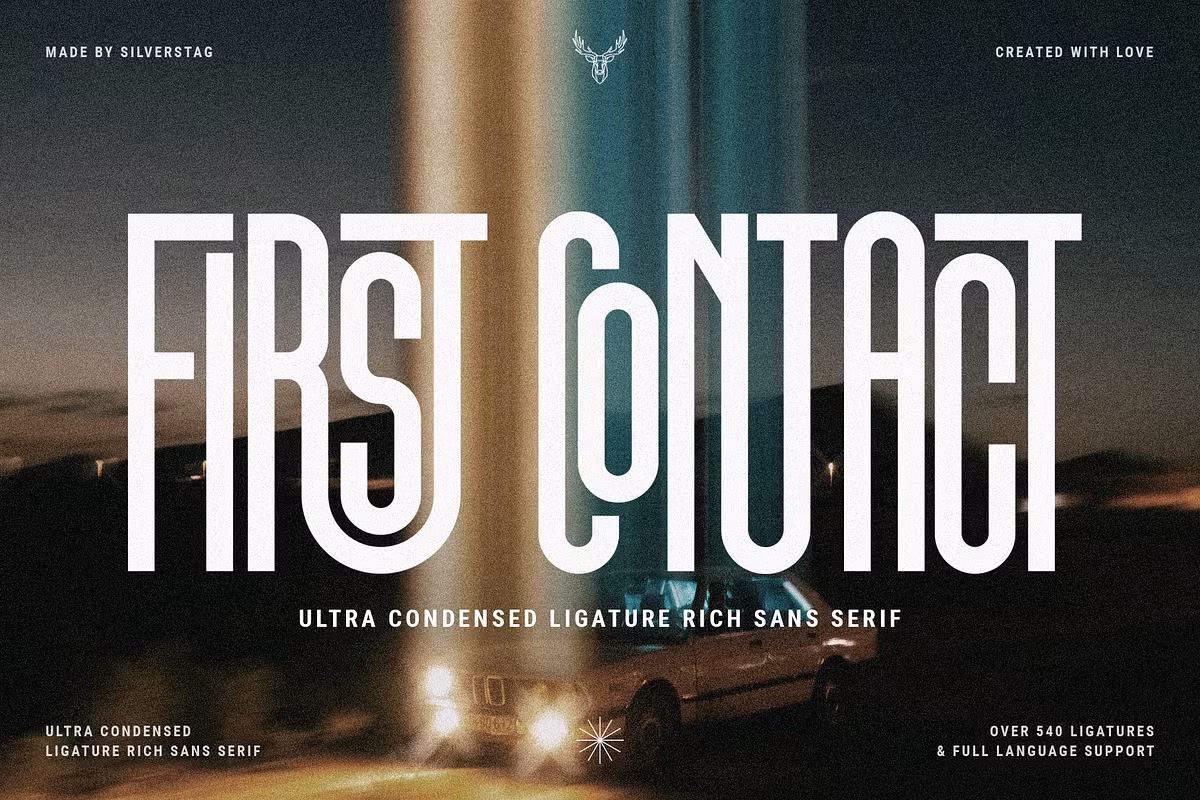
First Contact - Ultra Condensed Font Free Download
First Contact - Ultra Condensed Font Free Download is a bold and striking typeface with an ultra-condensed design that maximizes impact while minimizing space. With its narrow letterforms and sharp lines, this font is ideal for high-energy projects such as headlines, posters, logos, and any design where you need to make a strong, space-efficient statement.
The First Contact font delivers a futuristic and modern feel, making it perfect for technology branding, sci-fi designs, and bold marketing materials. Its unique condensed style allows you to convey a powerful message with maximum legibility even in compact spaces.
Make a powerful, space-efficient impact with the dynamic design of First Contact!